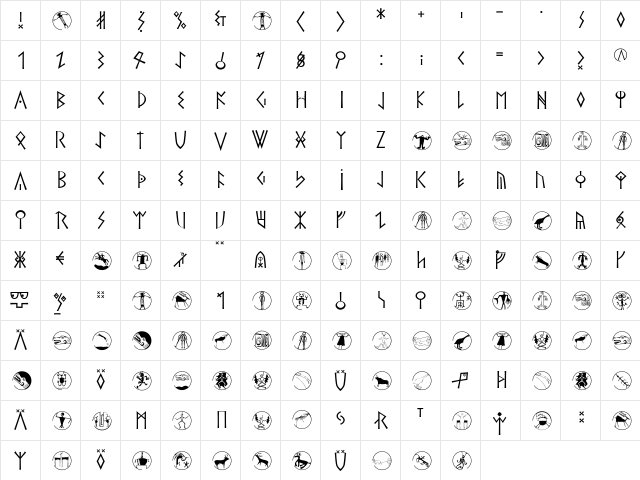
TheRomanRunesAlliance Regular
Design Context for TheRomanRunesAlliance Typeface
TheRomanRunesAlliance is a composed and adaptable typeface that performs quietly and consistently across a wide range of design contexts.